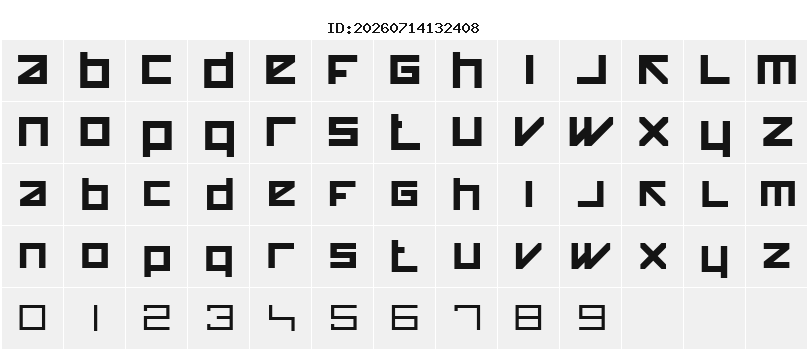
HappyKiller Preview
• Font Name: HappyKiller
• Full Font Name: HappyKiller
About HappyKiller.ttf
HappyKiller.ttf is a modern, elegant sans-serif font designed for ultimate readability and visual harmony. Perfect for branding, headlines, web design, and print materials.